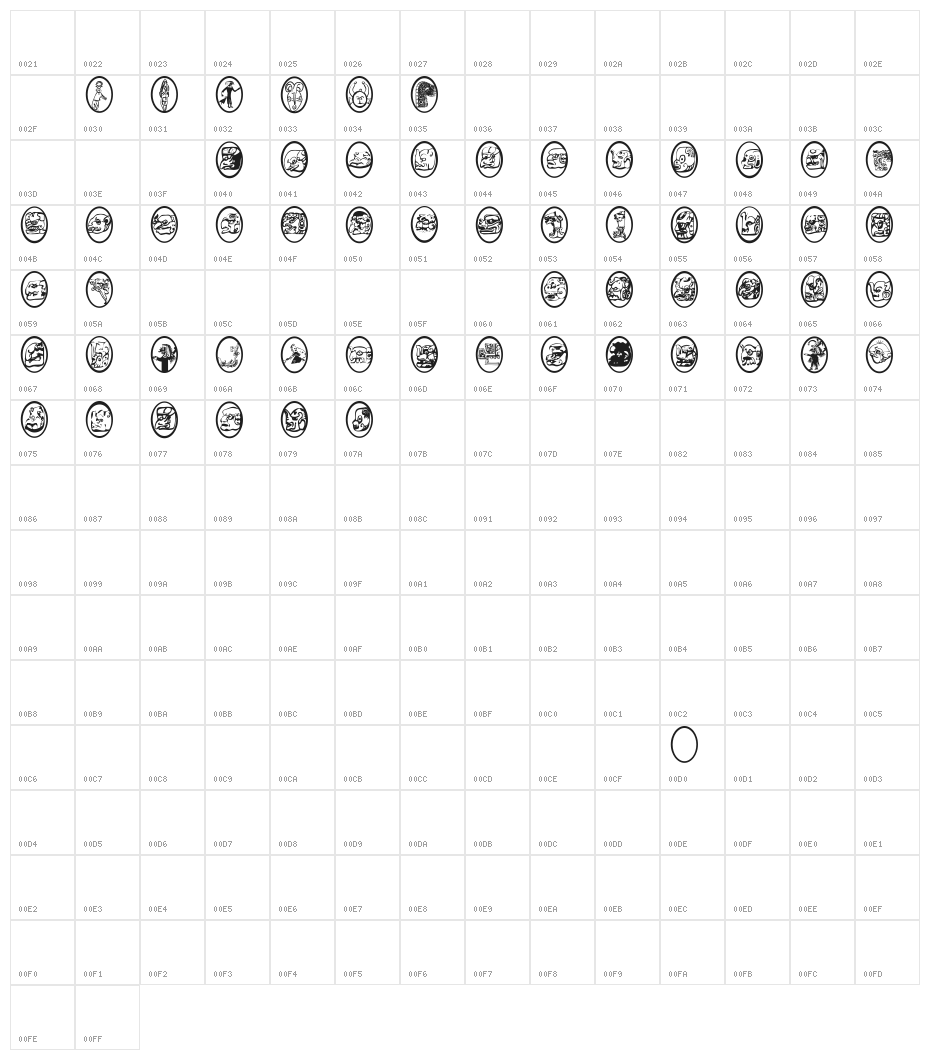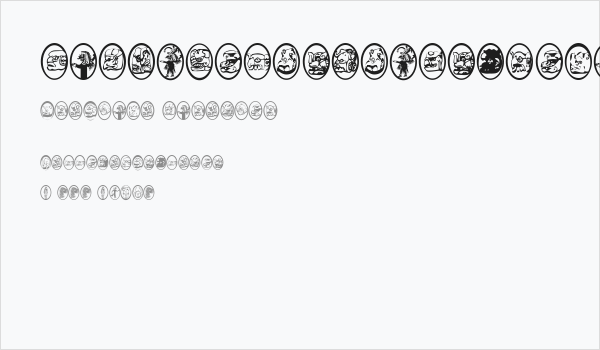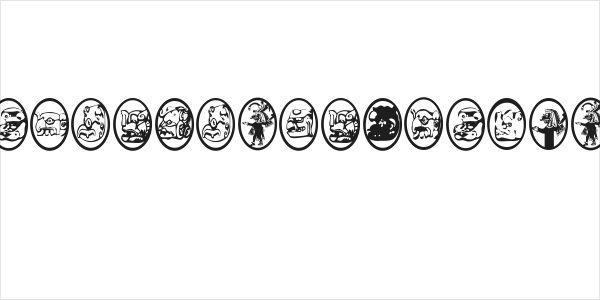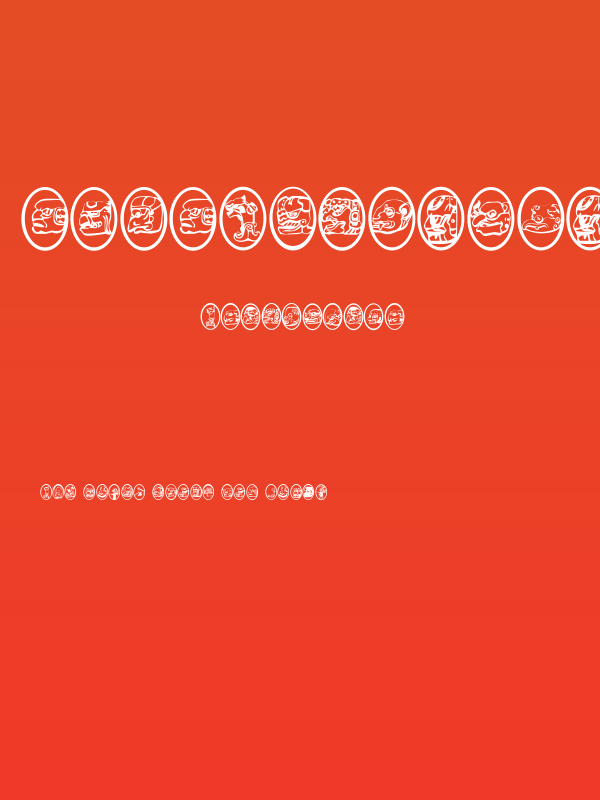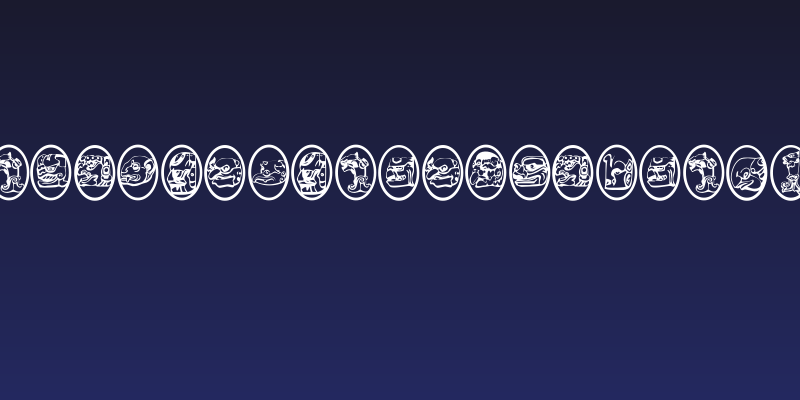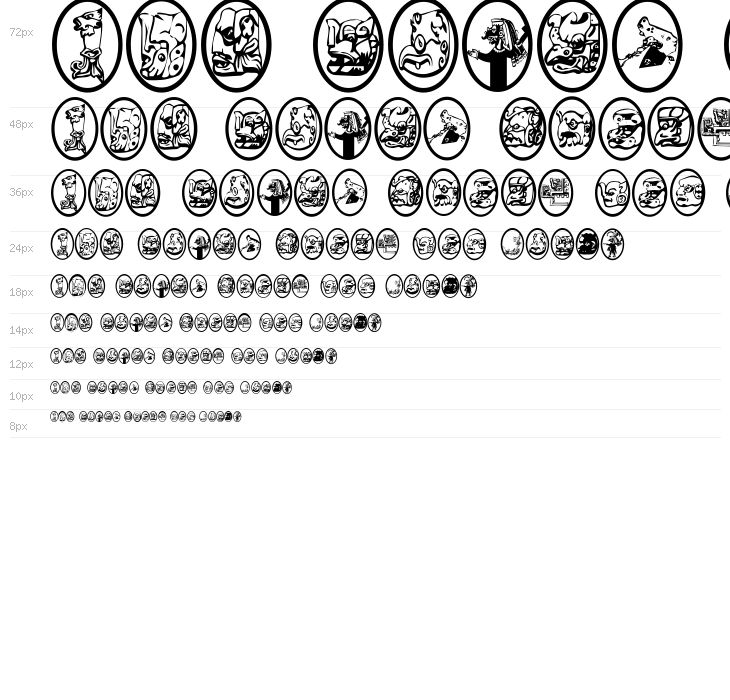
EiDesKolumbus-Improvisations Font
Highly decorative and illustrative font with each character enclosed in an oval, featuring intricate, whimsical, and abstract designs inspired by ancient or tribal motifs. The glyphs are unique and artistic, with heavy line work and high visual complexity.
Overall StyleDecorative, Artistic, Tribal, Abstract
Use CaseLogos, Headlines, Posters, Artistic projects
Proposed ProjectsPosters, album covers, art projects, book covers, branding for creative industries, themed event invitations.